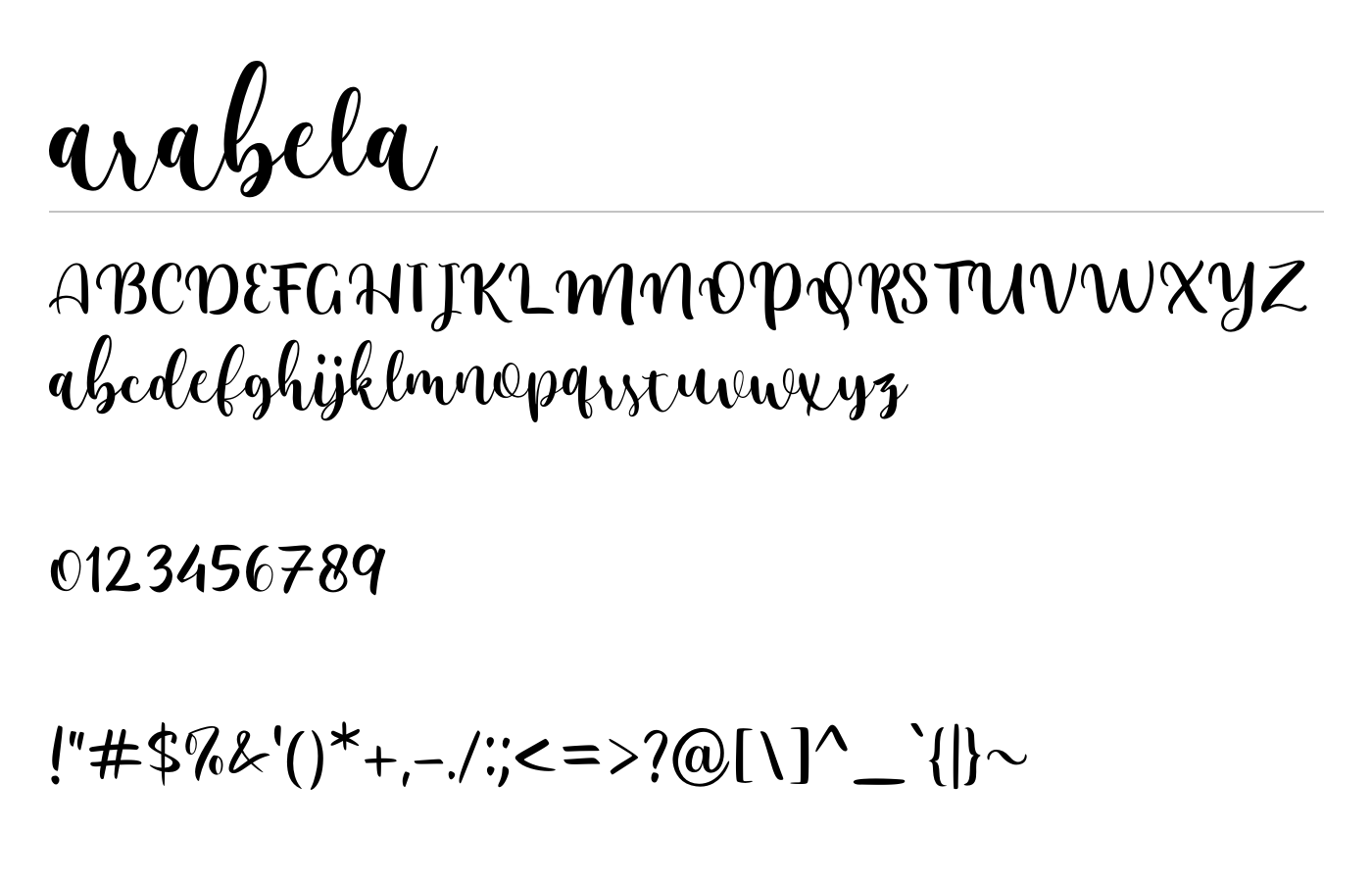
Arabela is a graceful script font featuring elegant, flowing letterforms with a light weight and tall x-height that create a refined, handwritten look. Its delicate strokes and playful swashes add a touch of charm and sophistication, making it ideal for invitations, branding, and feminine designs seeking a stylish, personal touch. This font works beautifully in logos, headlines, and decorative text where an elegant yet approachable personality is desired.
Arabela Font
About Arabela Font
| Designer | Aqeela Studio |